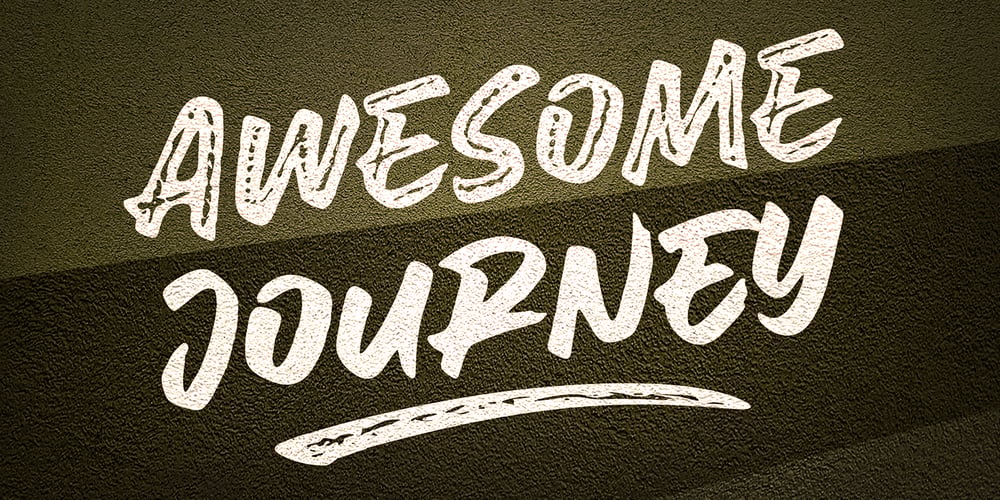
Awesome Journey
Awesome Journey font
Awesome Journey Font Family was designed by Rangga Subekti and published by Subectype. Awesome Journey contains 2 styles and family package options. “Awesome Journey” is a two styles brush font, street-wise and bursting with energy. With extra attention to quick strokes and sharp details. this font comes with two style, a Regular and a Clean version. This font is perfect for challenging jobs, titles, t-shirts, websites, hoodies, and various print and digital media with energy. Awesome Journey is ideal for logos, apparel, quotes, product packaging, or anything which needs a typographic turbo-boost. Thank you for your purchase! And hope you’re having fun with my “Awesome Journey” brush font ! Happy creating!